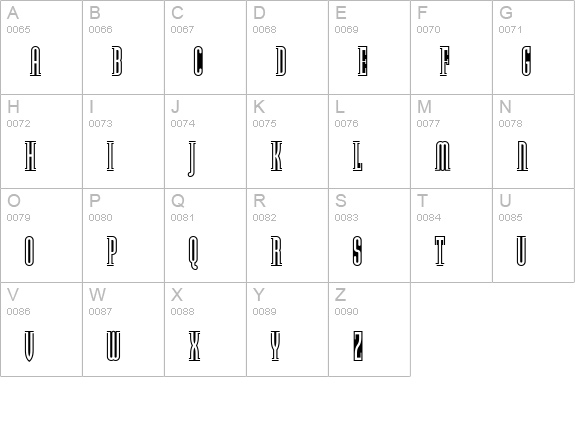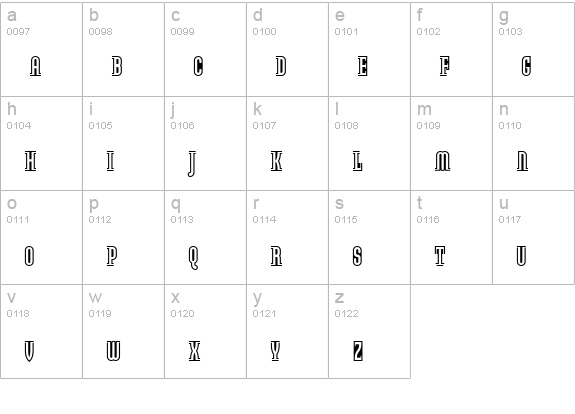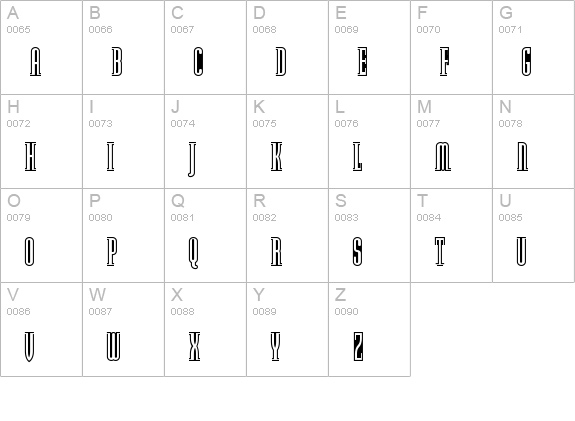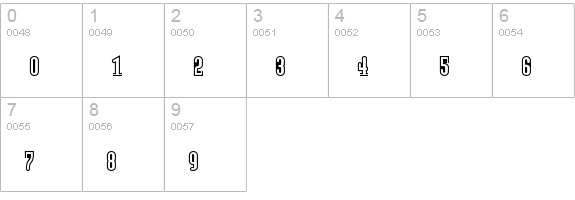
ModulaOutlinedSmallCaps Font Details
ModulaOutlinedSmallCaps font is a sophisticated and elegant typeface that combines the classic look of small caps with a modern twist of outlined design. With its sleek lines and clean appearance, this font is perfect for adding a touch of refinement to any project. The small caps feature adds a touch of formality, making it ideal for use in headings, titles, and other prominent text elements. What makes ModulaOutlinedSmallCaps font even more appealing is that it is available for free download at FontsMarket.com. This means that you can easily access this stylish and versatile font to elevate your design projects without any cost. Whether you're working on a branding project, editorial layout, or any other creative endeavor, ModulaOutlinedSmallCaps font is a fantastic choice for creating a polished and sophisticated look.